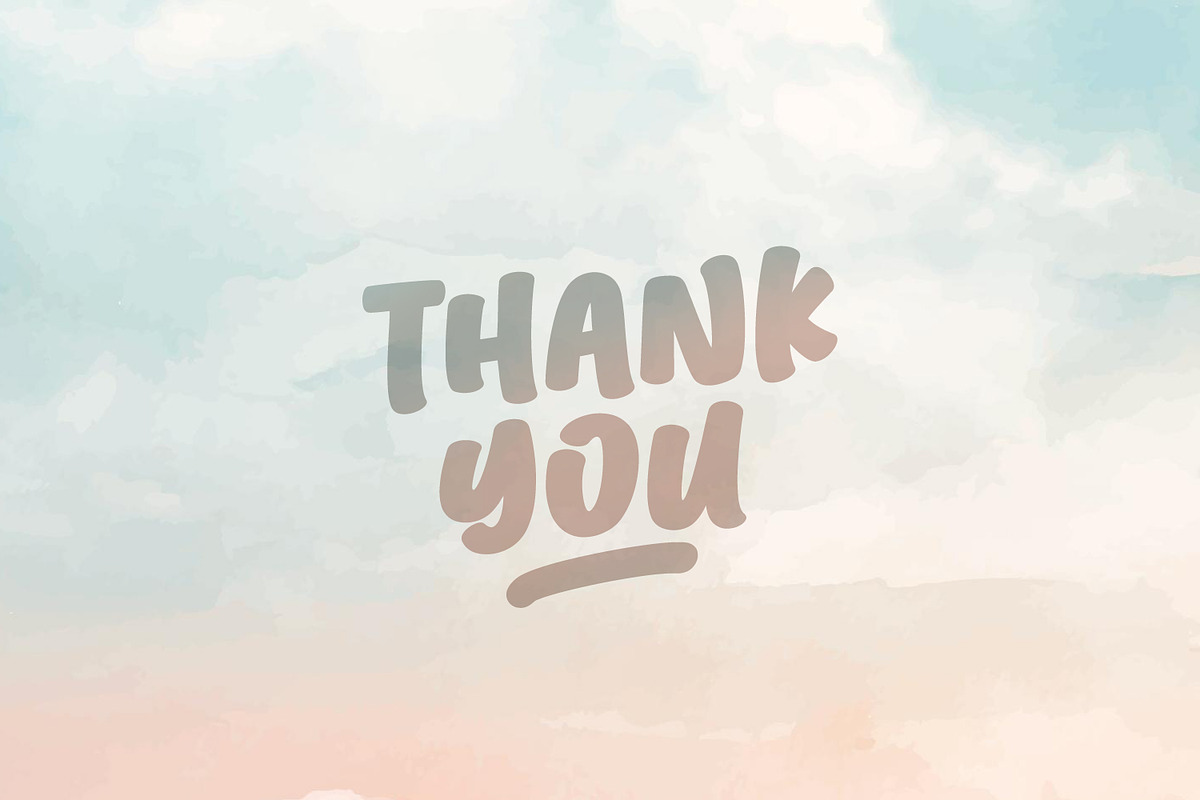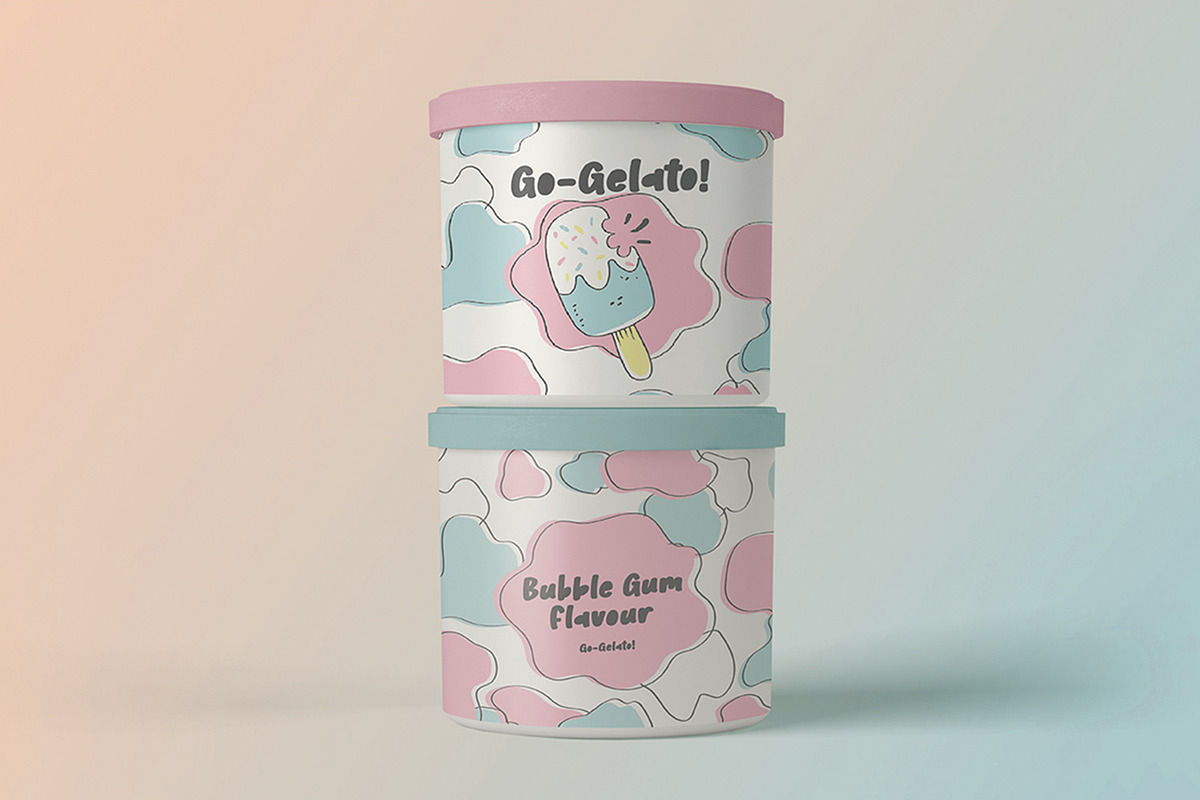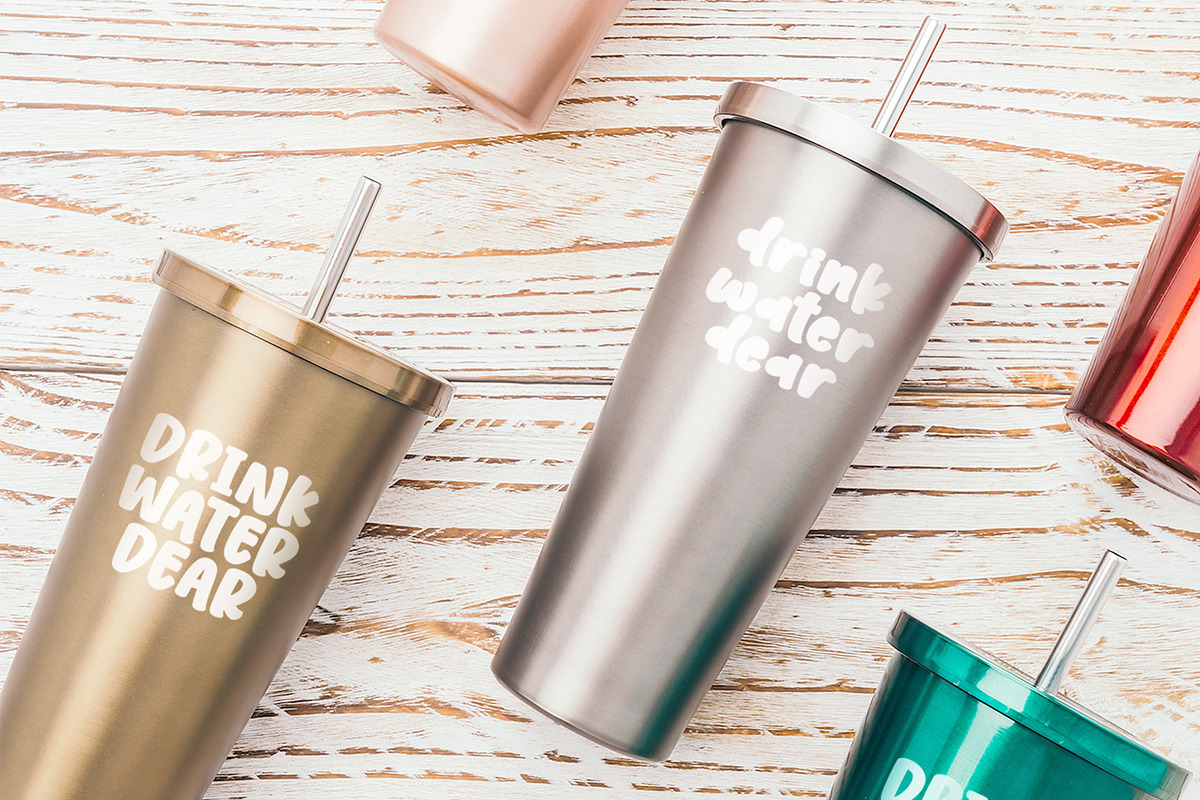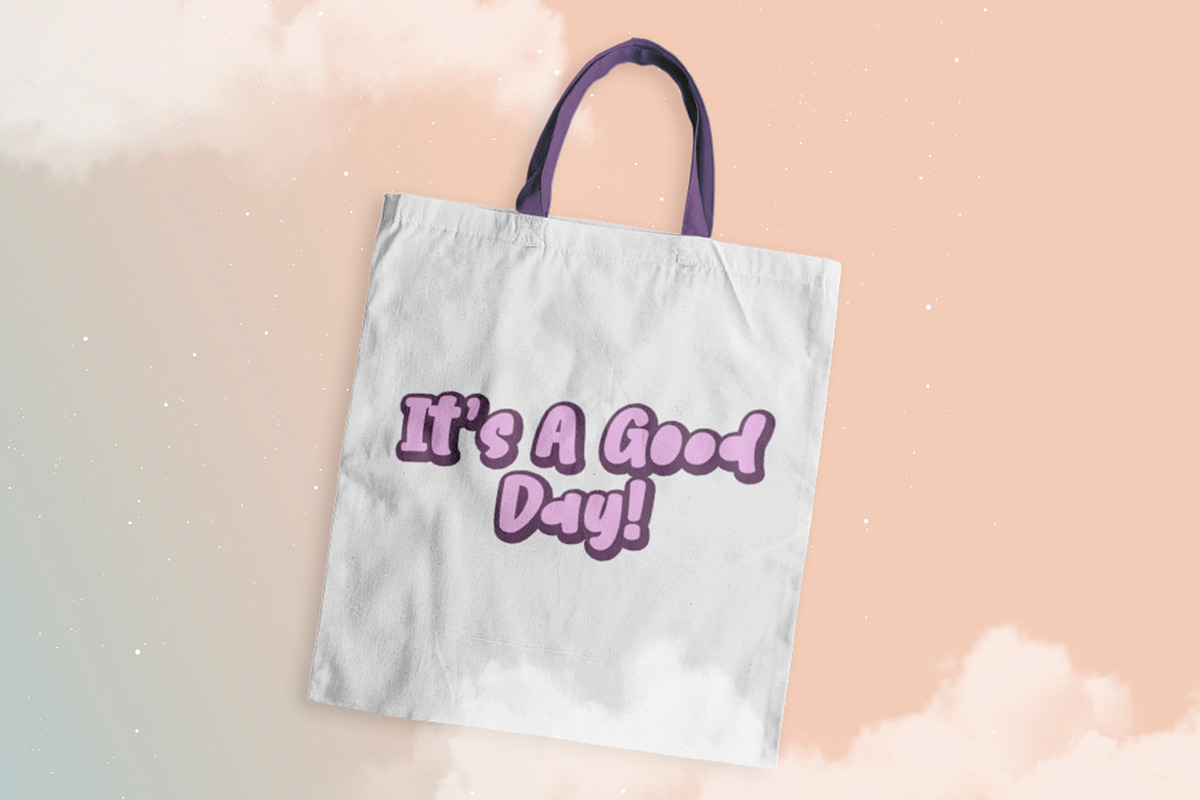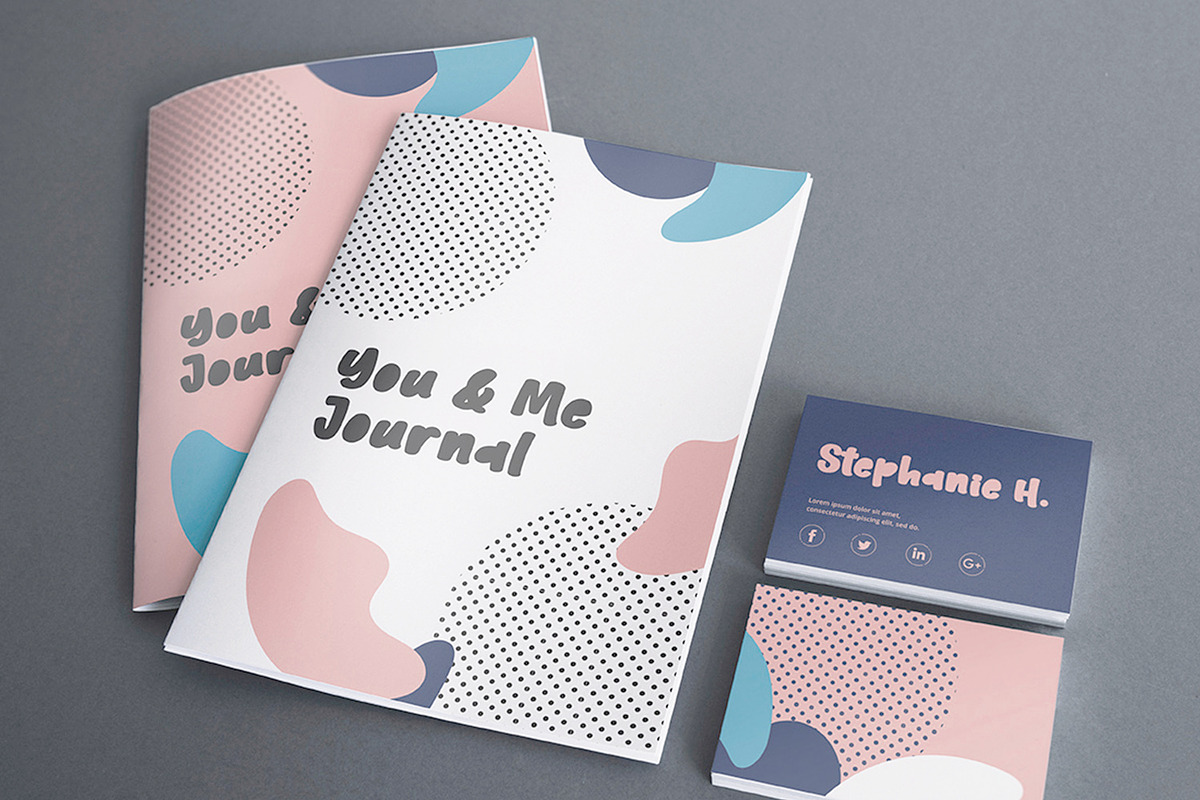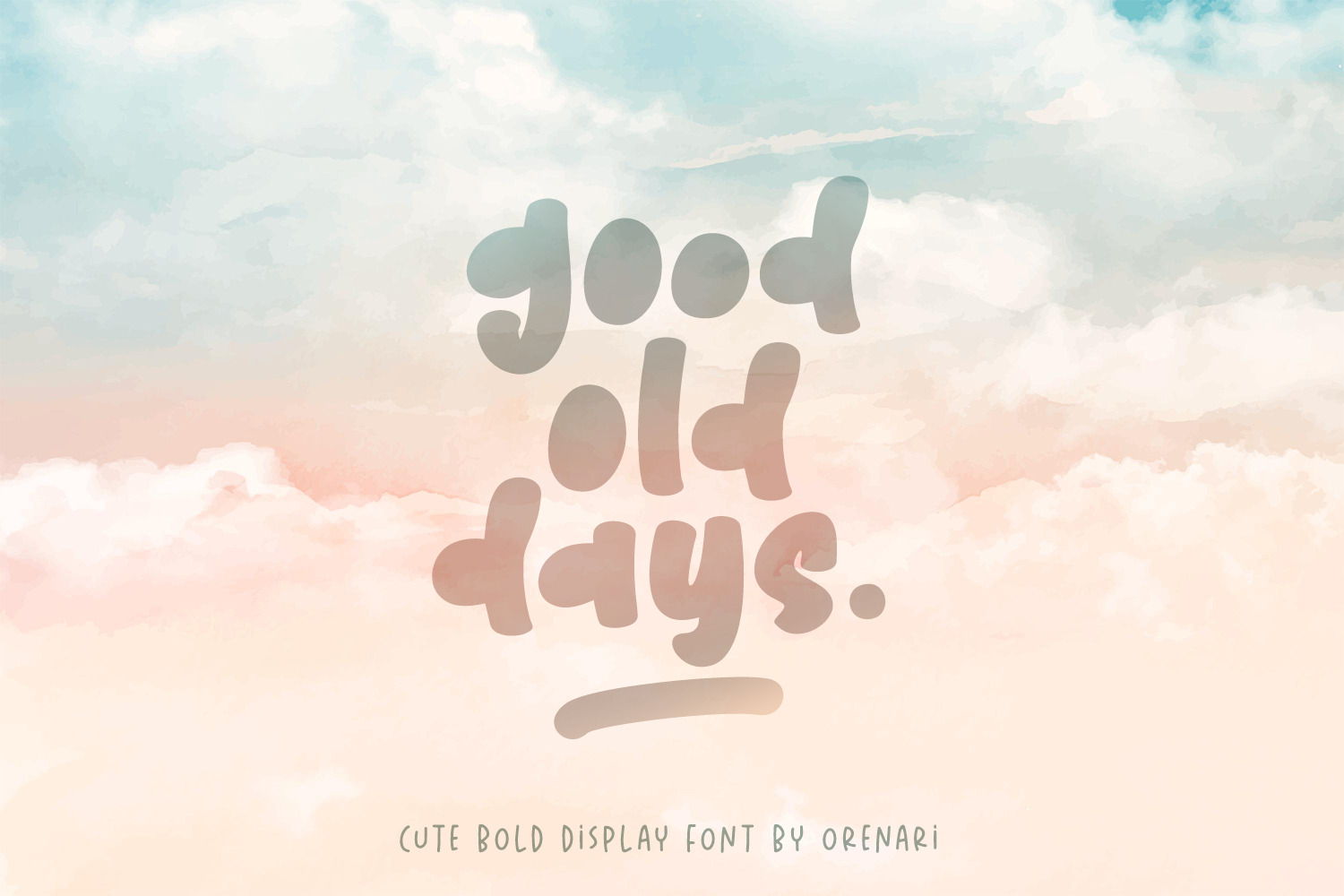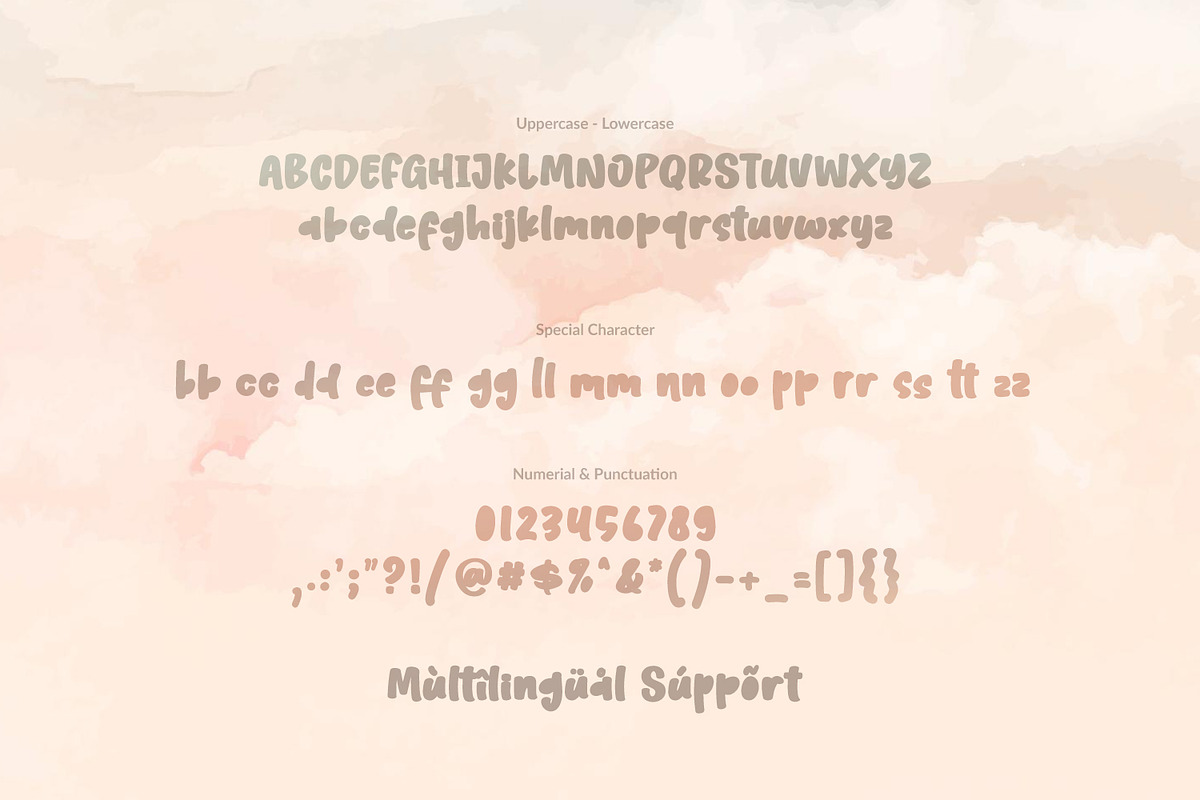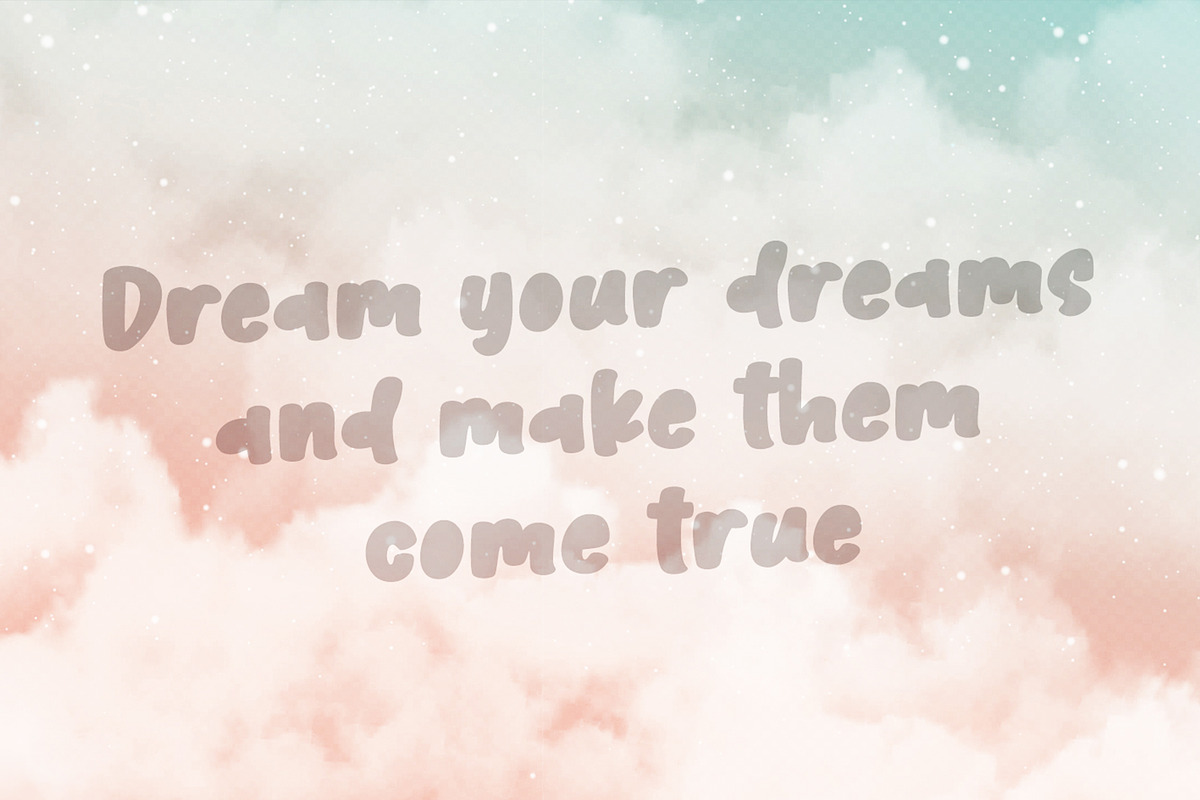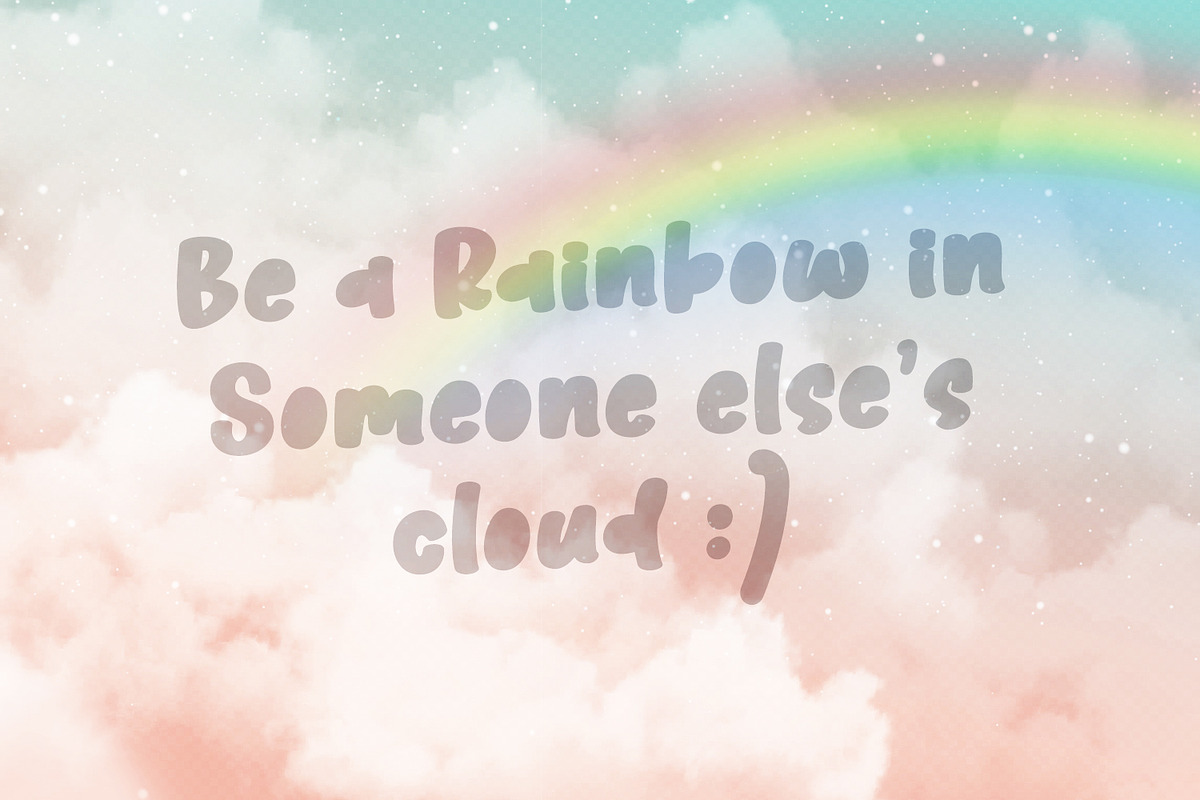
Good Old Days - Cute Bold Font
Good Old Days font is a cute bold display font, looks so strong yet playful. Good Old Days font is complete with uppercase, lowercase and special characters, also support many languages. It's perfect for any design project, such as quotes, illustration, advertising, cut, craft, advertising, clothing, branding, and many more.
Language Support: Afrikaans, Albanian, Catalan, Danish, Dutch, English, French, German, Icelandic, Italian, Norwegian, Portugese, Spanisch, Swedish, Zulu.